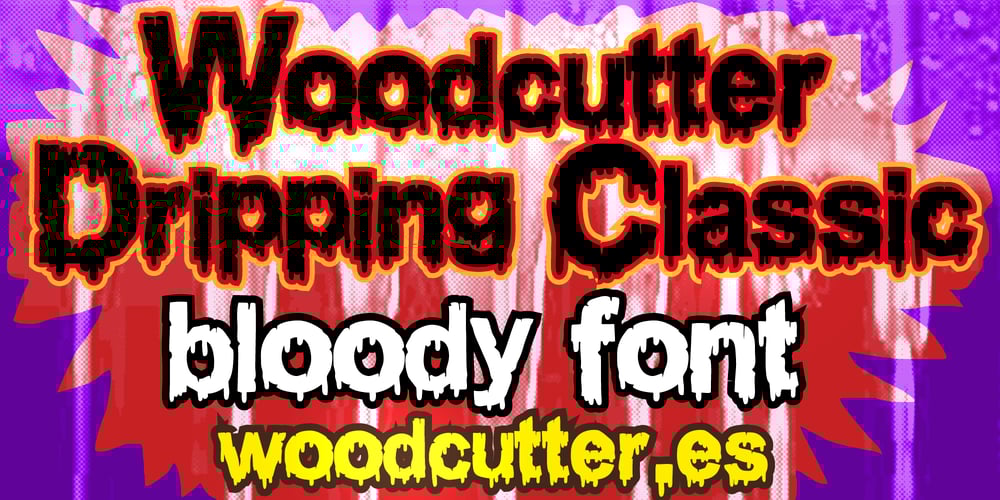
Woodcutter Dripping Classic Font Family was designed by Jordi Manero and published by Woodcutter. Woodcutter Dripping Classic contains 1 styles and family package options. “Woodcutter Dripping Classic” is a font that takes a classic design and transforms it into letters with a dripping effect. Available in uppercase, lowercase, and with accents, this font combines traditional elegance with a modern and daring twist. Perfect for creative projects seeking a distinctive look, “Woodcutter Dripping Classic” adds an element of dynamism and originality to any text, evoking a sense of movement and fluidity.